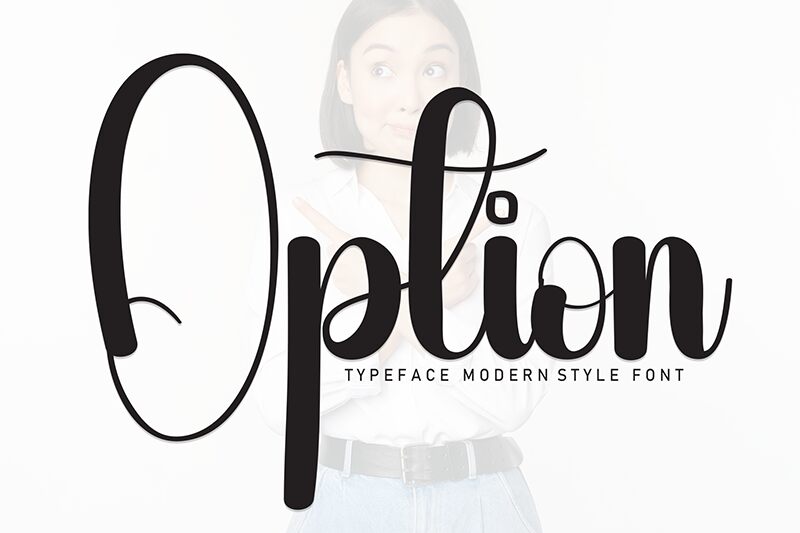
Option
Option font by Andi Moz is a free calligraphy font with an elegant, artistic, and modern style. The typeface exhibits a sophisticated character that matches its expressive letters marked by decorative flair. It is graceful and features the natural beauty, magnificence, and charm that calligraphy fonts are known for.